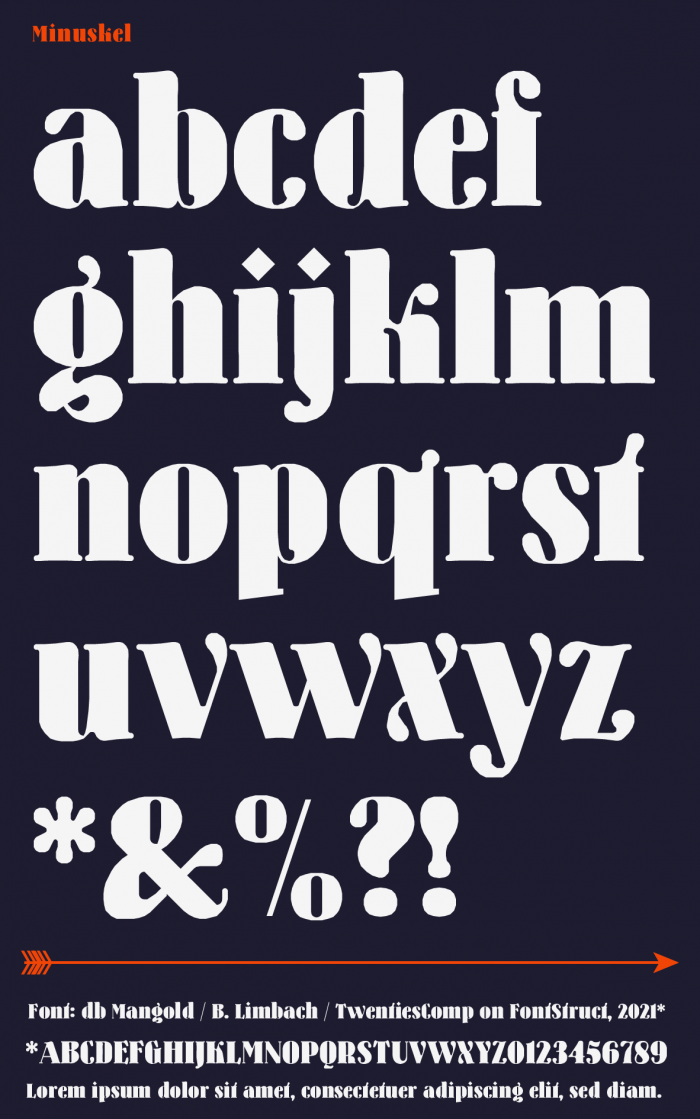
Love the distinguishing marks for the "i" and "j"
amazing curves
Fabulous work. I would argue it is more like art nouveau style, because of the soft curvy shapes. 10/10
Beautiful work, lots of details here that give this font a lot of character!
There is a lost brick at the right side of the B... ?️
it's amazing! it looks like "Abril Fatface" from Google Docs